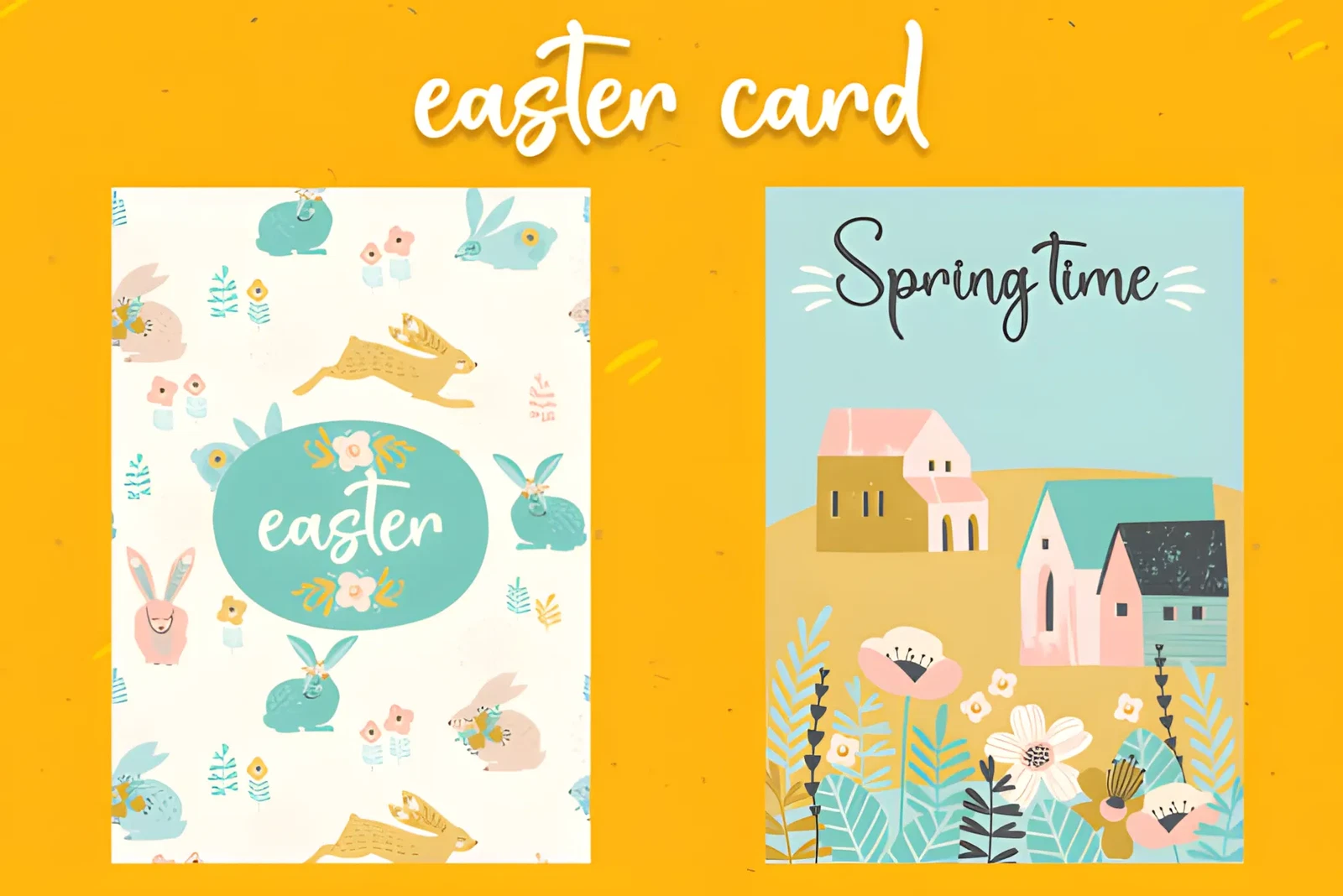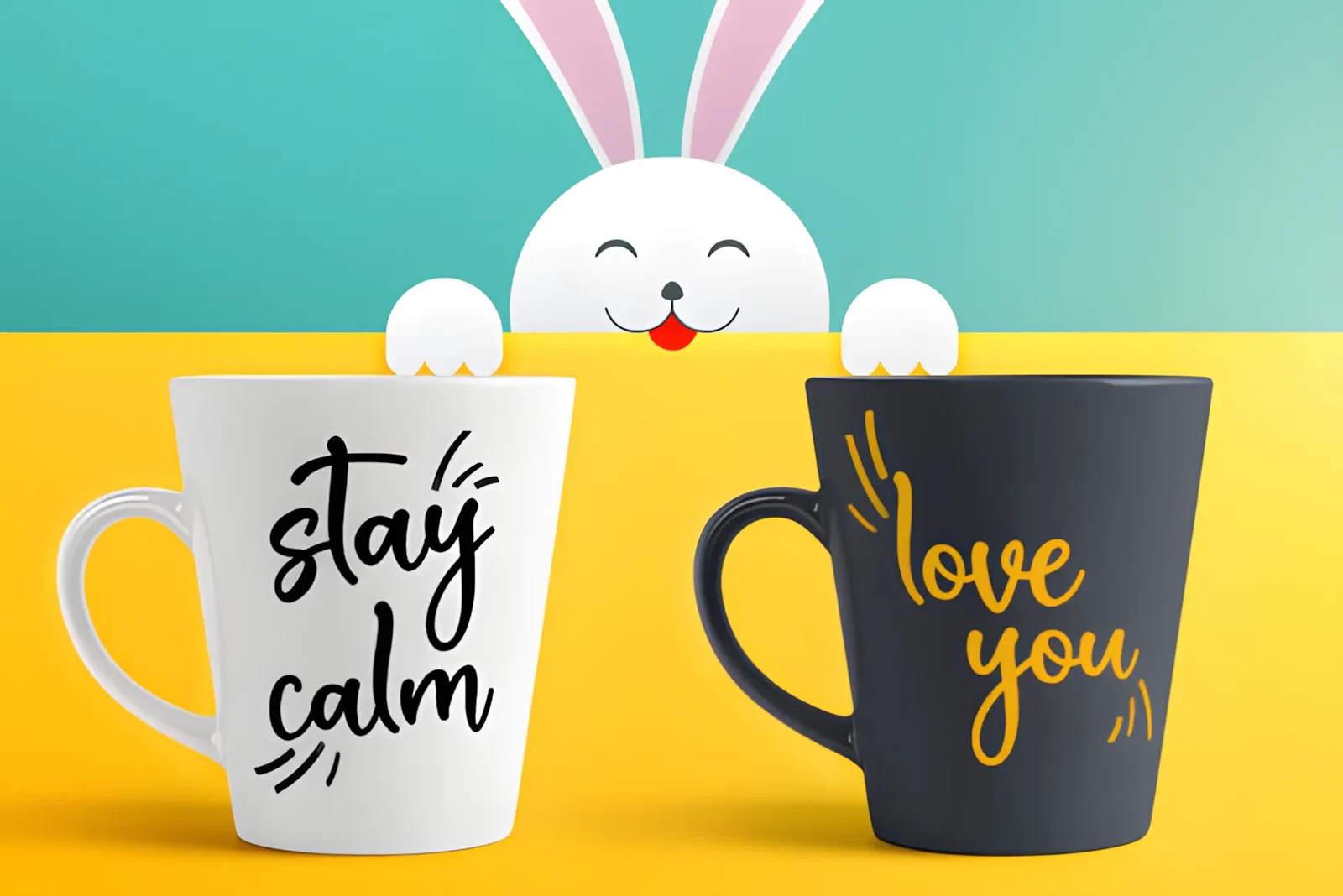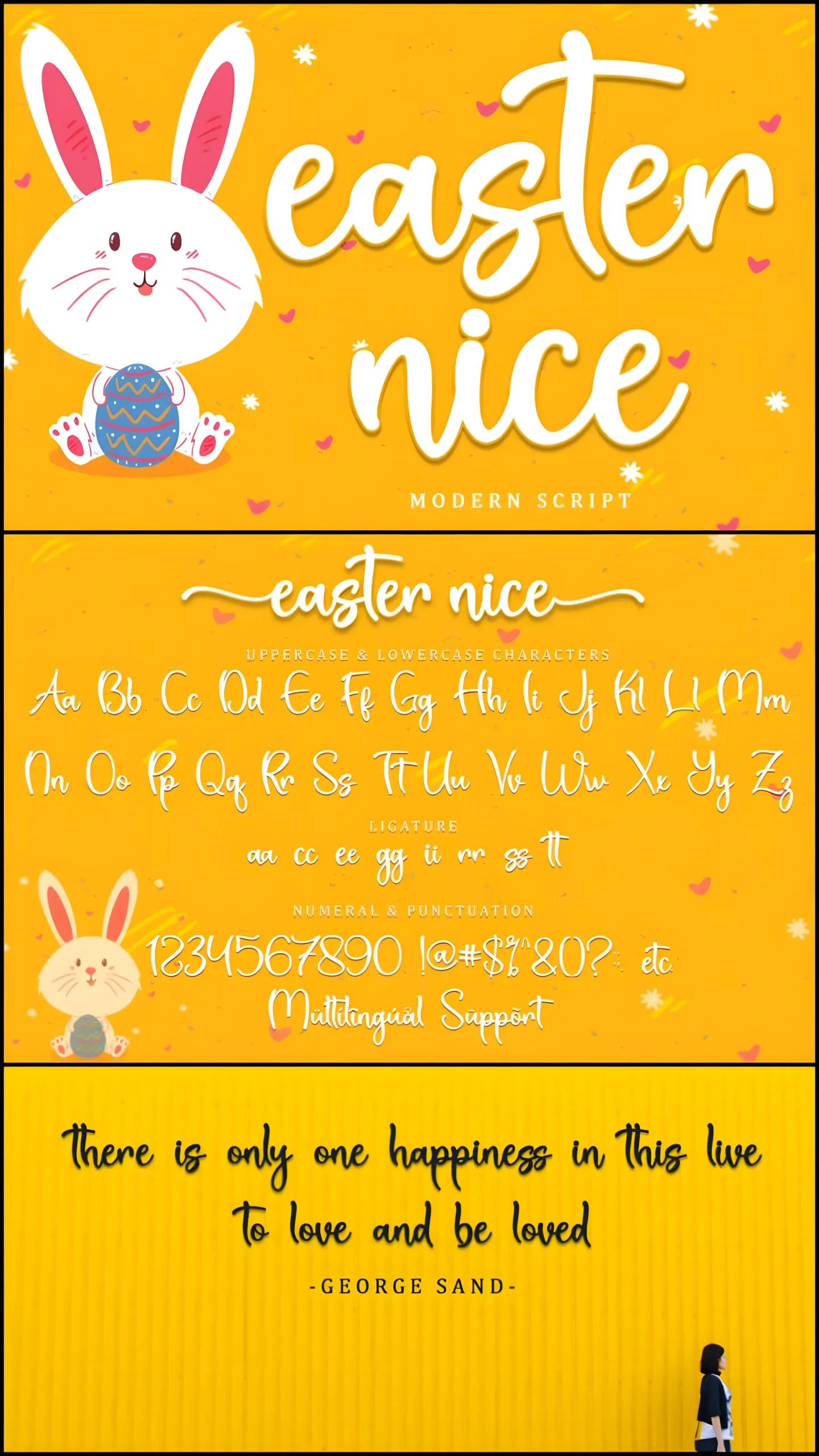
Typography shapes the feeling of a design, and when a project calls for warmth, joy, and festive charm, the right font can make all the difference. The Easter Nice Font is a decorative display typeface built to bring cheerful personality and holiday spirit to creative work. Whether used for seasonal greetings, event posters, packaging, or social media graphics, this font delivers a friendly, custom-crafted aesthetic ideal for Easter and spring-themed design projects.
From childhood celebrations to community events and seasonal marketing, Easter Nice adds a welcoming voice to messages that aim to connect with audiences through color, joy, and visual style.
What Is Easter Nice Font?
Easter Nice Font is a decorative display typeface crafted with lively, playful letterforms that convey the spirit of Easter and springtime celebrations. Its curves are soft but expressive, giving designs an inviting, hand-drawn quality that feels both personal and festive.
This typeface works best in short text elements such as logos, event titles, posters, packaging, and invitations where cheerful typography plays a leading role. Its decorative nature makes it stand out compared to standard serif or sans fonts typically used in everyday design.
Whether paired with bright pastels or bold spring colors, Easter Nice brings visual warmth and personality to creative work.
Visual Style and Design Characteristics
The visual style of Easter Nice Font embodies playful energy. Its letter shapes feel hand-made and whimsical, with soft strokes that mimic the ease of a friendly brush or pen. The font’s personality is cheerful without feeling overly ornate, making it a versatile choice for holiday themes and everyday creative design.
Designers often choose Easter Nice when they want typography that feels lighthearted and approachable. The font pairs beautifully with graphic elements like illustrated eggs, flowers, bunnies, ribbons, and spring icons — all classic symbols of the Easter season.
Its decorative charm works in both digital and print settings, creating headline text that draws attention while maintaining a joyful tone.
Best Uses for Easter Nice Font
Easter Invitations and Seasonal Greeting Cards
Easter Nice Font is perfect for invitations, greeting cards, and seasonal messages. Whether designing a family Easter brunch invite or a spring festival greeting card, the font’s cheerful letterforms enhance the message and communicate celebration.
It pairs wonderfully with colorful illustrations and pastel themes, supporting designs that feel joyful and festive.
Event Posters and Promotional Materials
In event marketing, typography must immediately grab attention and convey mood. Easter Nice Font works effectively on posters, flyers, banners, and promotional materials where its playful style helps headlines pop and messaging feel inviting.
This makes it a strong choice for community Easter events, egg hunts, seasonal markets, charity fundraisers, and springtime celebrations where excitement and fun are central themes.
Social Media Graphics and Digital Content
In digital design, bold and engaging typography is critical for high-impact visuals. Easter Nice Font is well suited for:
- Social media posts
- Banner graphics
- Digital invitations
- Email headers
- Featured image text
Its playful tone helps social content stand out on feeds and encourages audience engagement with seasonal messages.
Packaging, Merchandise, and Branding
Beyond traditional holiday design applications, Easter Nice Font also performs well in packaging and merchandise design. It brings visual delight to product labels, gift boxes, candy wrappers, stickers, and promotional swag for seasonal campaigns.
Brands looking to connect emotionally with customers during springtime promotions can leverage this decorative typeface to reinforce brand personality and festive appeal.
Advantages of Using Easter Nice Font
- Playful decorative style with cheerful personality
- Perfect for Easter and spring projects
- Strong visual presence for headlines and titles
- Versatile for print and digital media
Easter Nice Font combines joyful visual appeal with practical usability, making it a go-to choice for designers aiming to craft celebratory and heartwarming visuals.
Easter Nice Font is a friendly, decorative typeface that brings warmth, color, and festive personality to creative projects. Its charming design enhances holiday invitations, posters, social media graphics, packaging, and seasonal branding with delightful visual energy.
For designers and creatives looking to celebrate Easter or spring themes with joyful typography, Easter Nice Font offers both versatility and visual appeal.